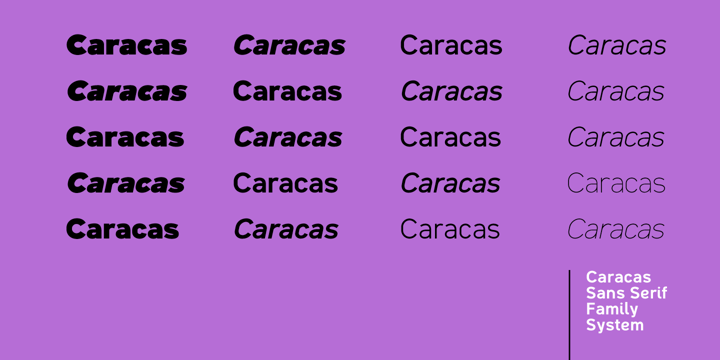
Die Schriftfamilie Caracas wurde von John Moore entworfen und von John Moore Type Foundry veröffentlicht. Caracas enthält 20 Stile und Familienpaketoptionen.
Caracas is a new family of sans serif fonts, looking friendly, sweet and comfortable to read. Where text flow between straight lines and round by becoming transparent in the interest of readability. Caracas is ideal for working in small letters and texts of a technical nature. Caracas is a humanistic approach to reading sans forms.
Designer: John Moore
Herausgeber: John Moore Type Foundry
Foundry: John Moore Type Foundry
Eigentümer des Designs: John Moore Type Foundry
Caracas